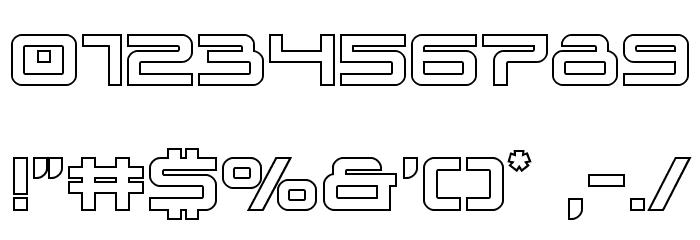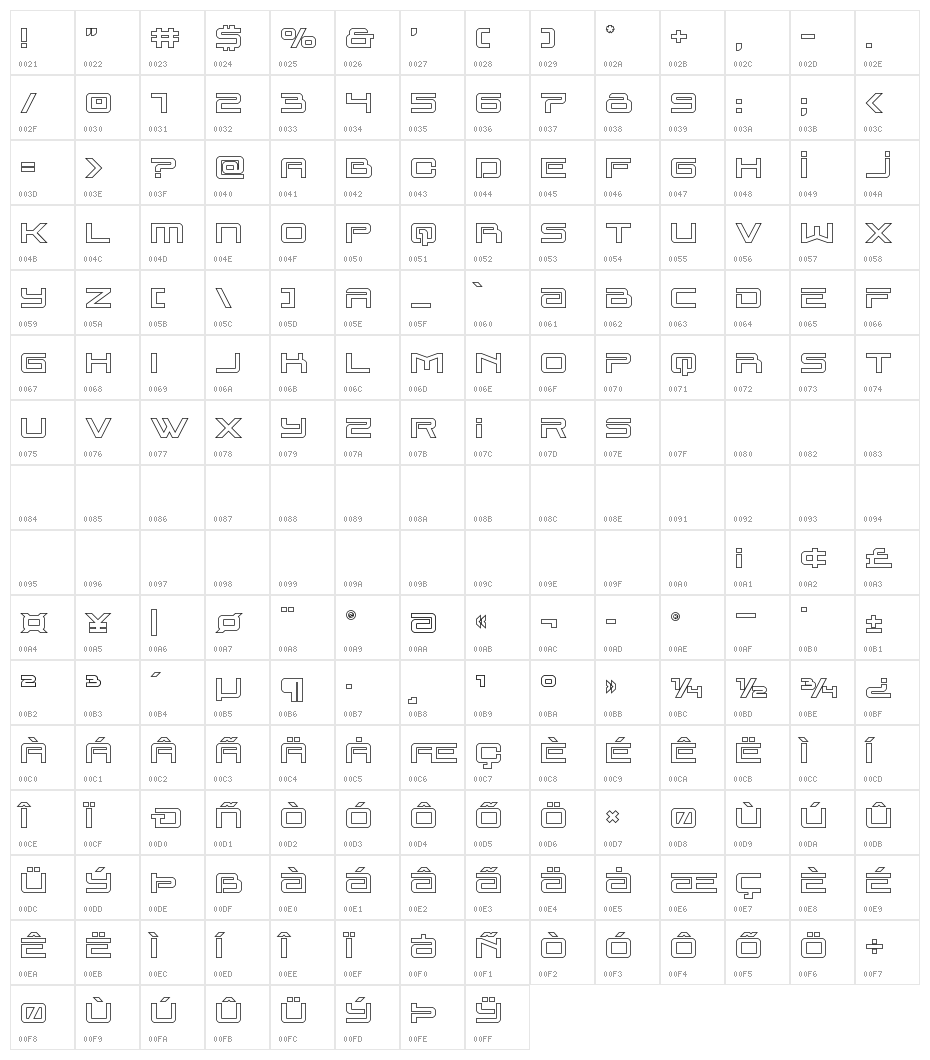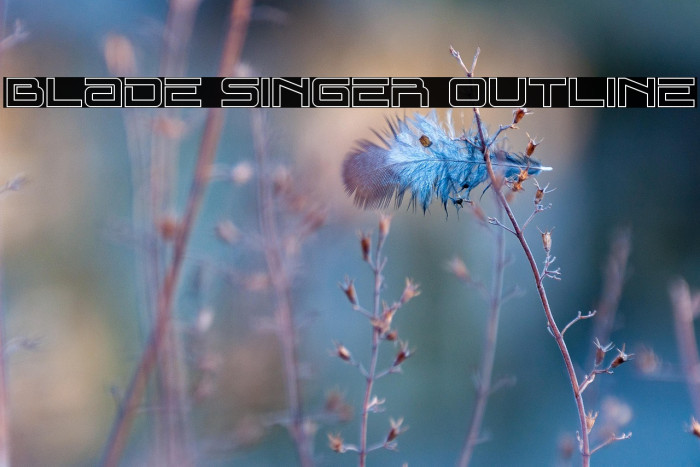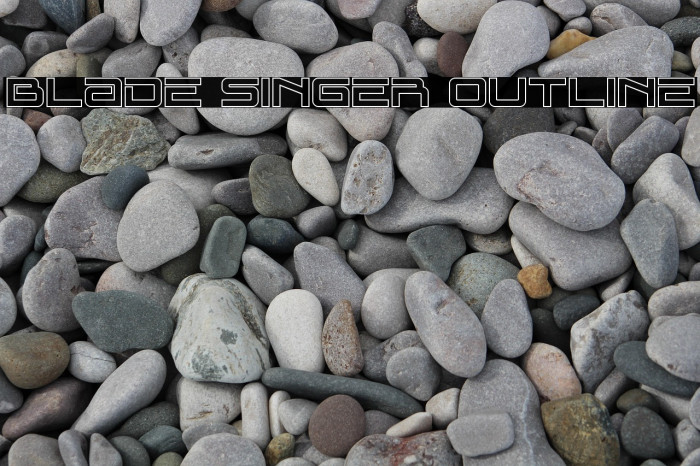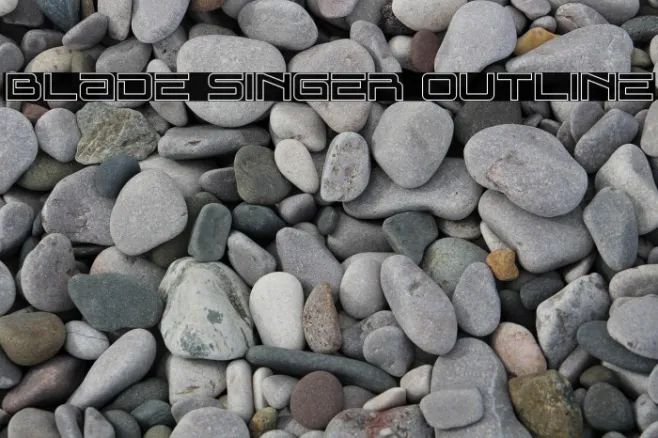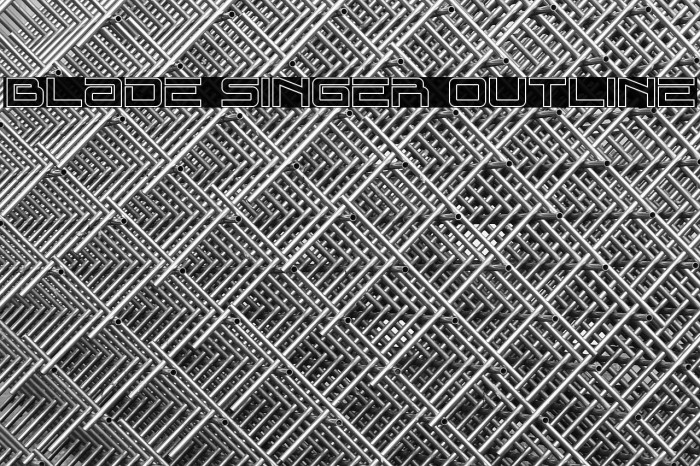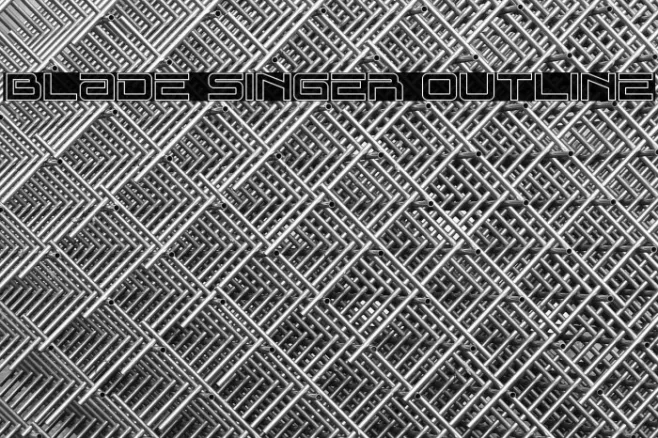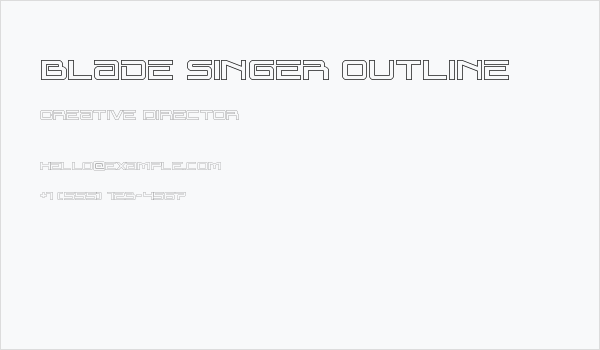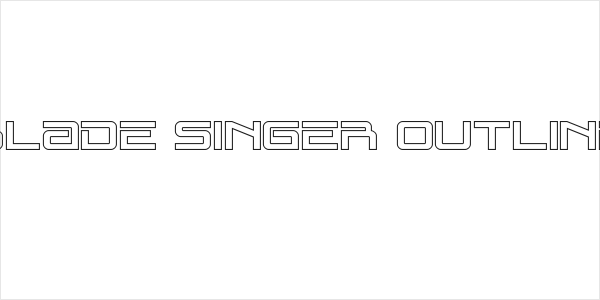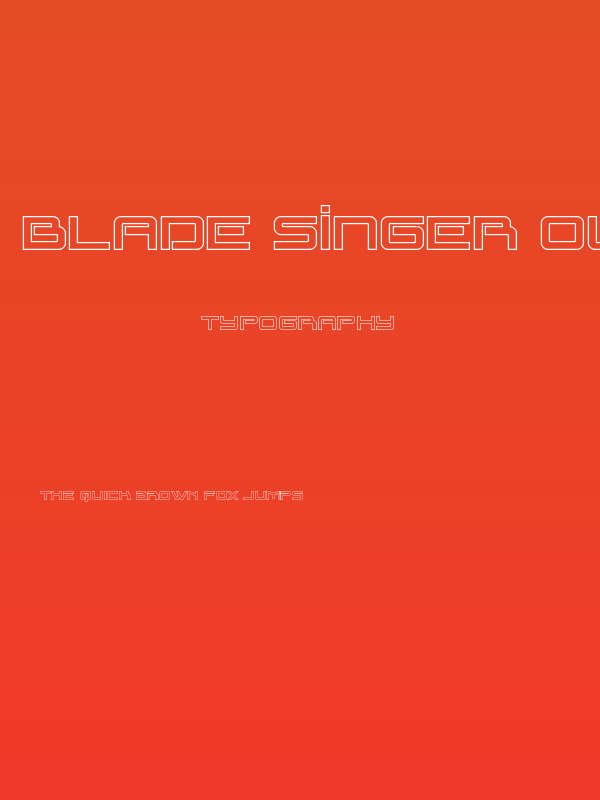
Blade Singer Outline Font
Blade Singer Outline Description
This font features a modern, geometric outline style with clean, sharp edges and a futuristic aesthetic. The characters are constructed with uniform line thickness, creating a cohesive and structured appearance. The uppercase and lowercase letters maintain a consistent height, contributing to a balanced and harmonious look. The numerals and special characters are designed to match the overall style, ensuring versatility across various applications. The font's outline nature gives it a unique, airy feel, making it suitable for projects that require a contemporary and eye-catching design.
| Proposed Projects | Ideal for sci-fi themed designs, technology branding, video game titles, and modern posters. |